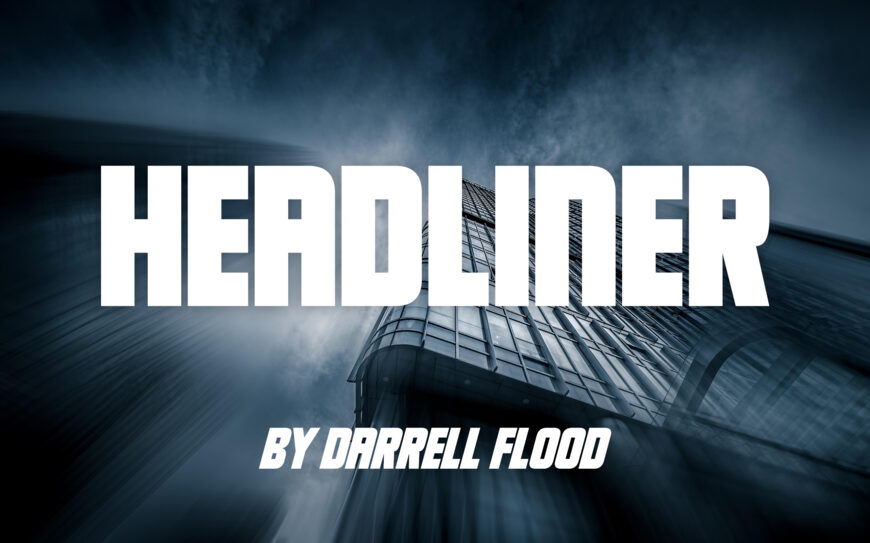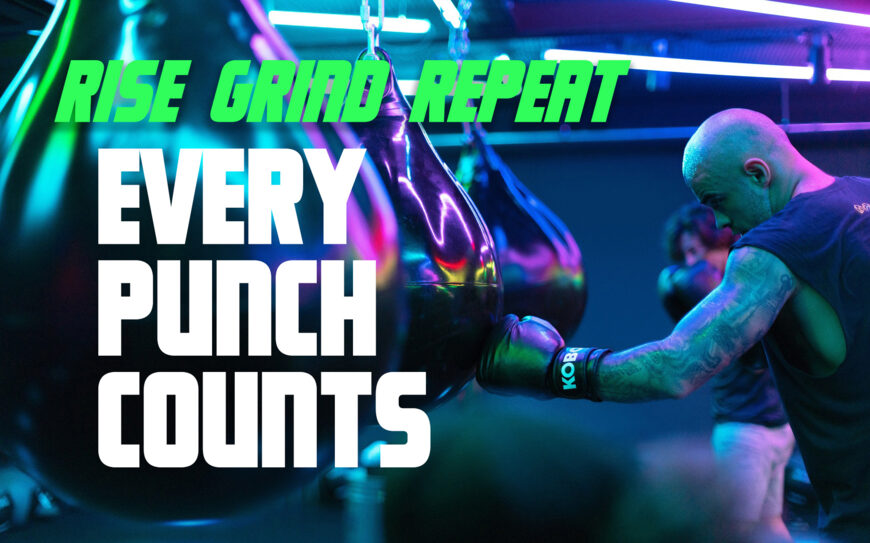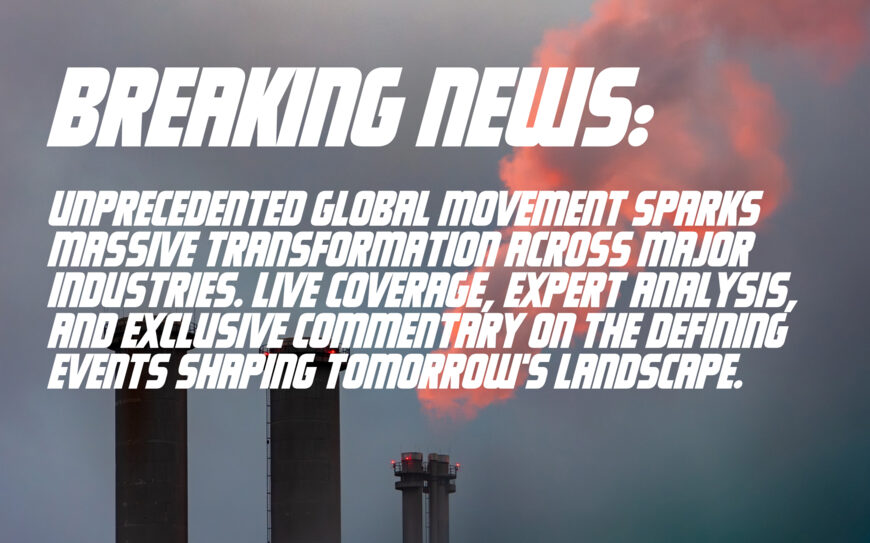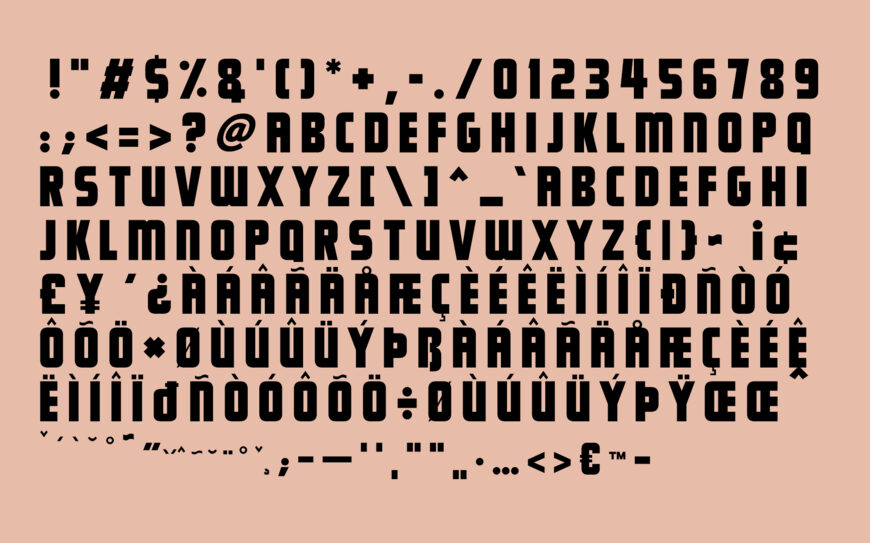
Headliner by Darrell Flood is an ultra-bold, condensed sans-serif typeface engineered for high-impact display use. Featuring heavy vertical blocks, sharp geometry, and a solid all-caps structure, it delivers an intense, commanding presence.
Its compact character spacing makes it ideal for bold headlines, action sports media, poster art, news graphics, and modern branding. The typeface includes regular and italic styles with support for standard alphanumeric characters and accent glyphs.